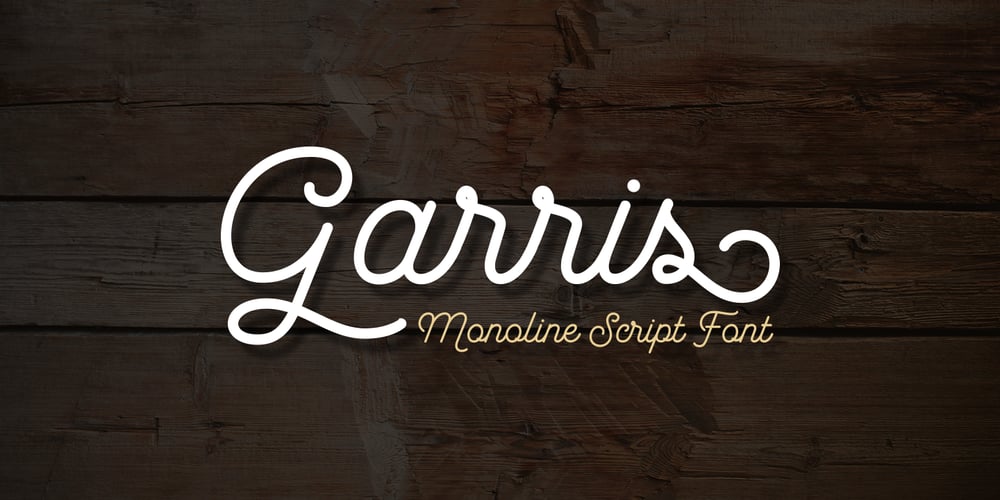
Garris
Garris font
Garris Font Family was designed by Arwan Sutanto and published by Locomotype. Garris contains 1 styles and family package options. Garris is a monoline script font with awesome opentype features such as ligatures, stylistic alternates, swashes, stylistic set, initial and terminal form as well as multilingual support with 360+ glyphs. This monoline script font comes with multiple alternates that will make your words look like a custom lettering. Available in light and regular versions as an option for your typographic design creations.